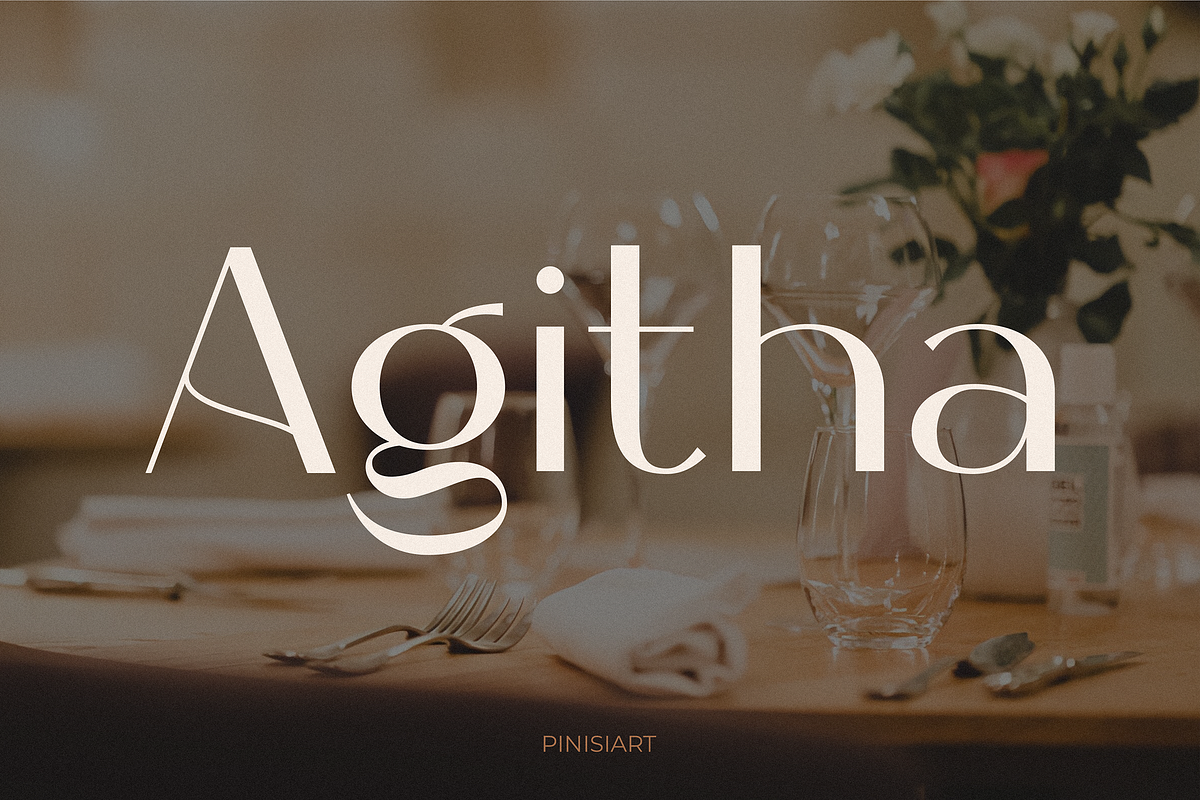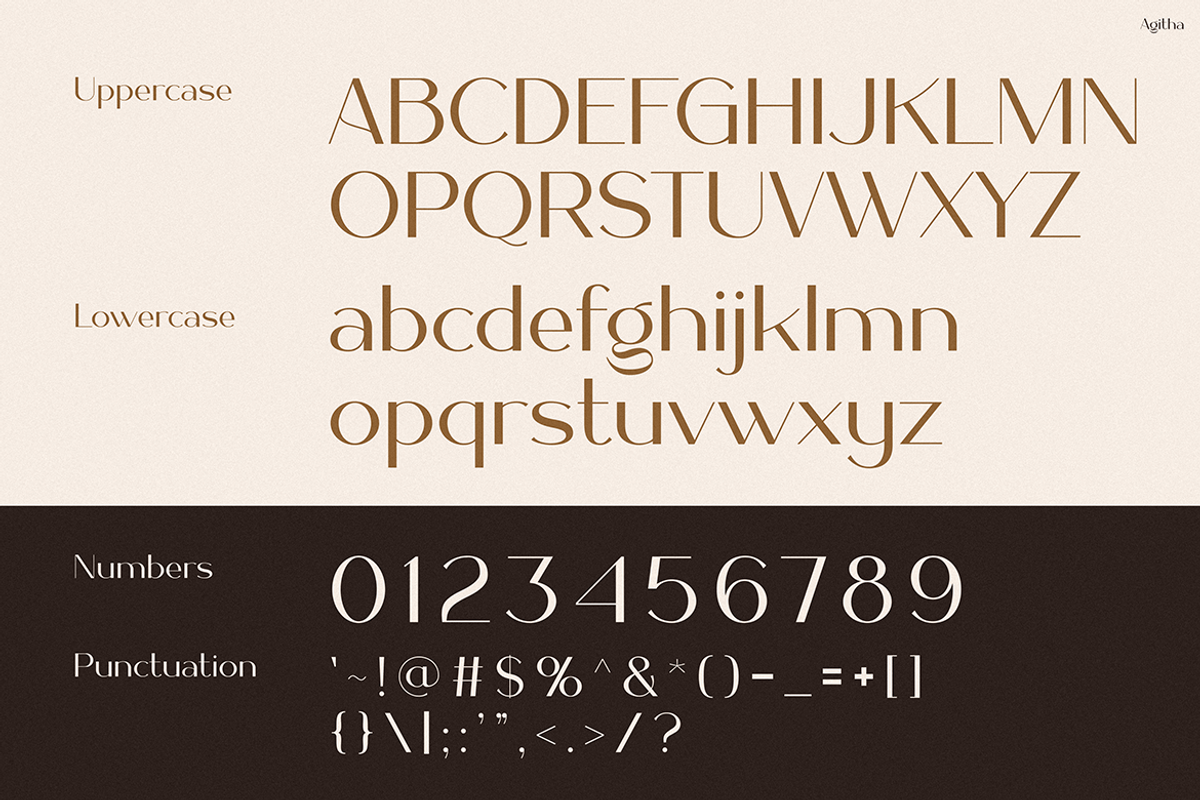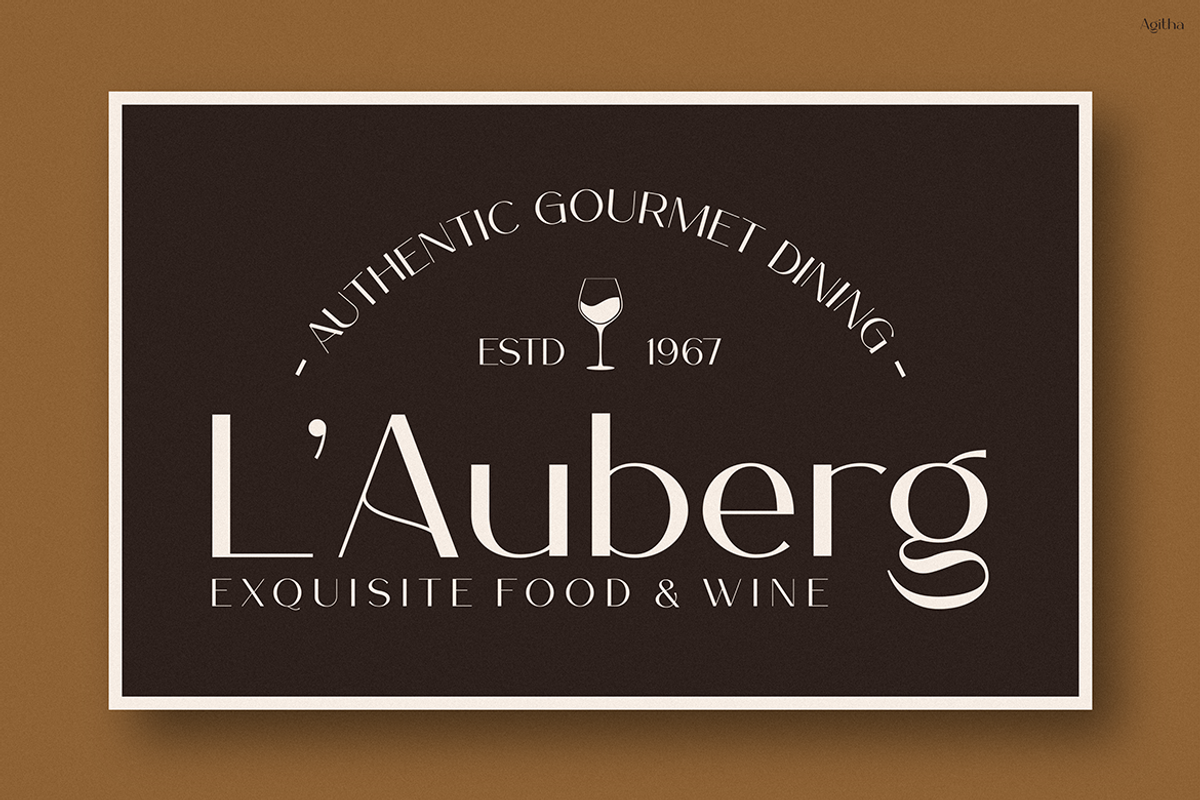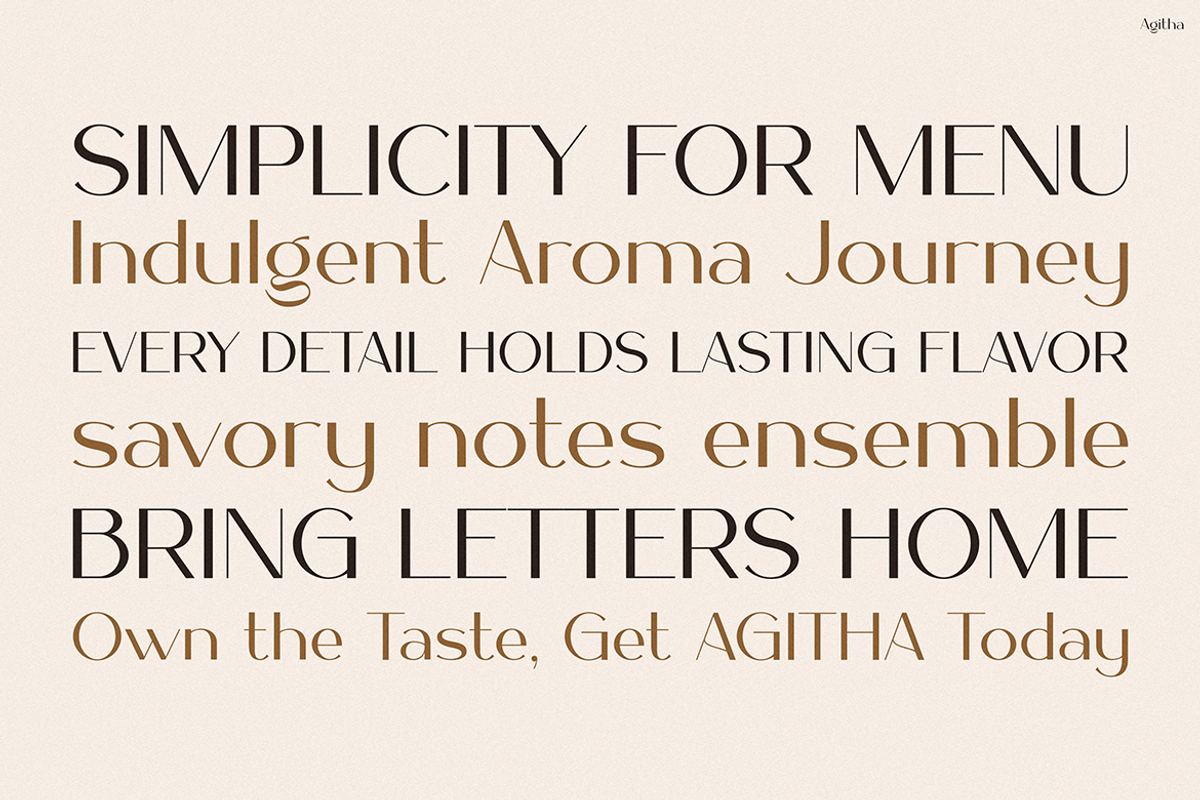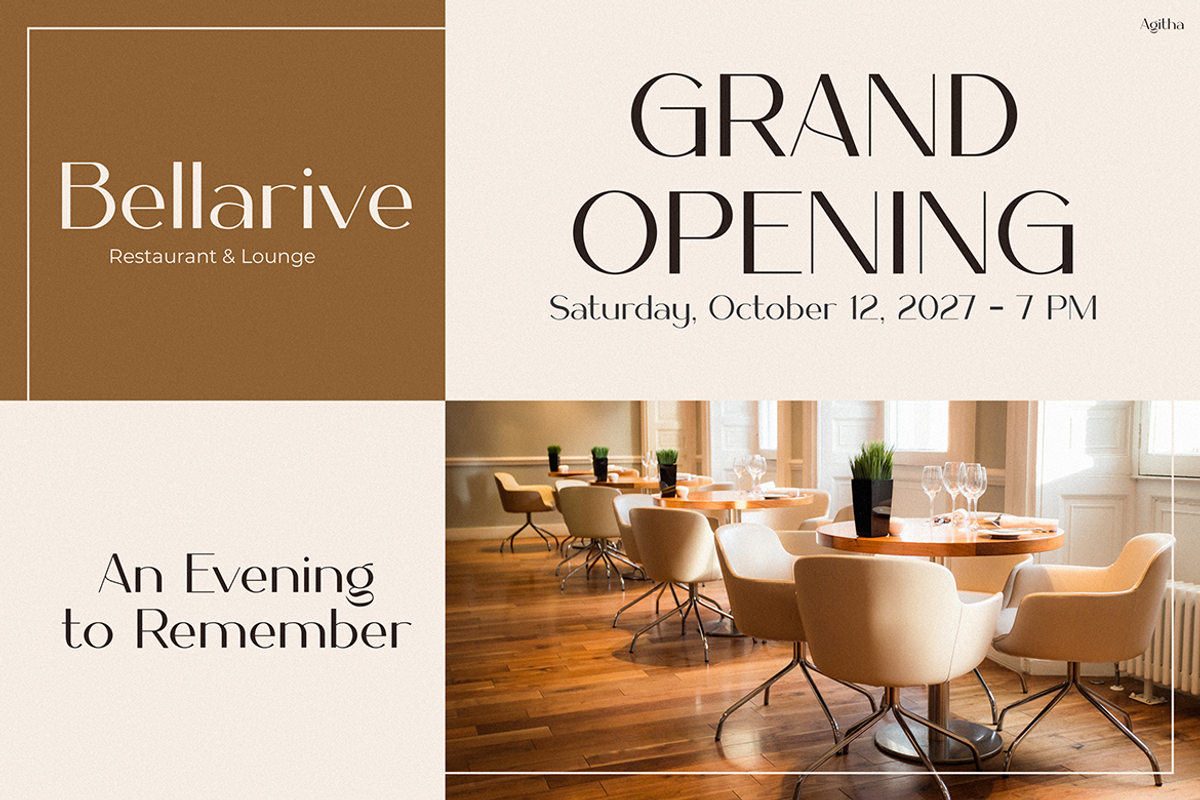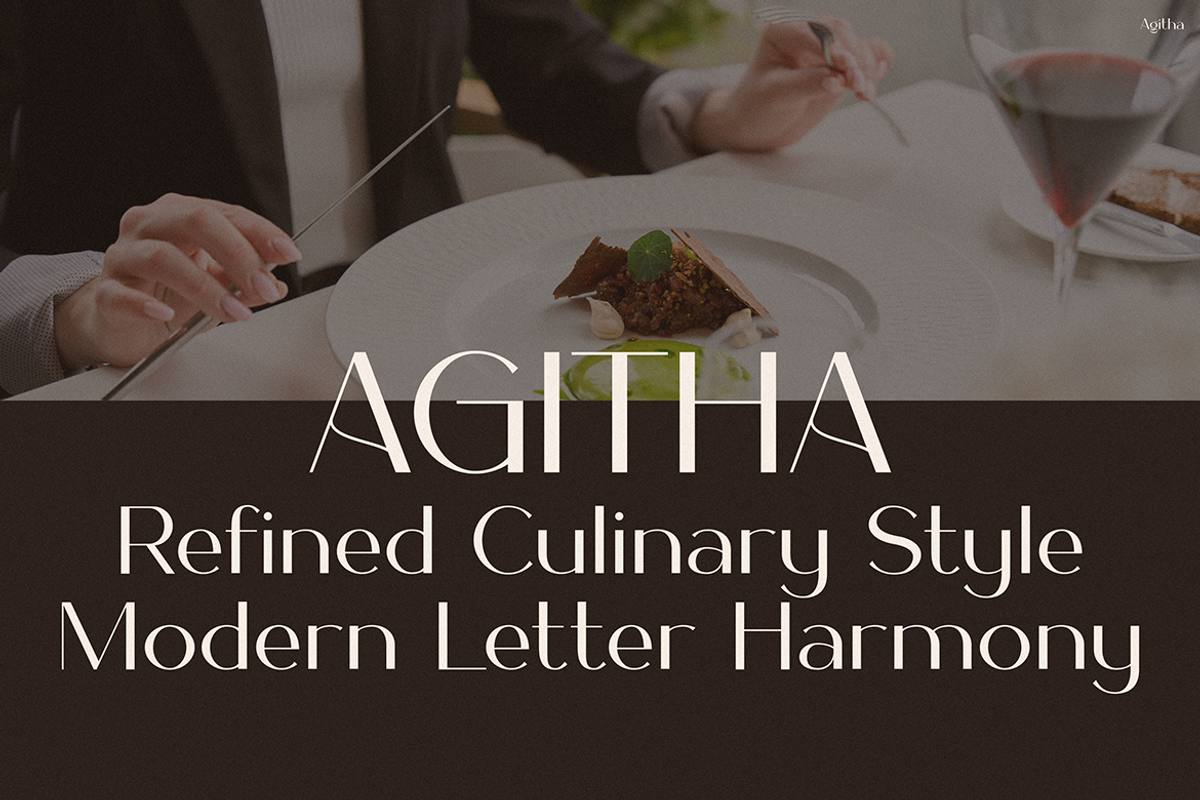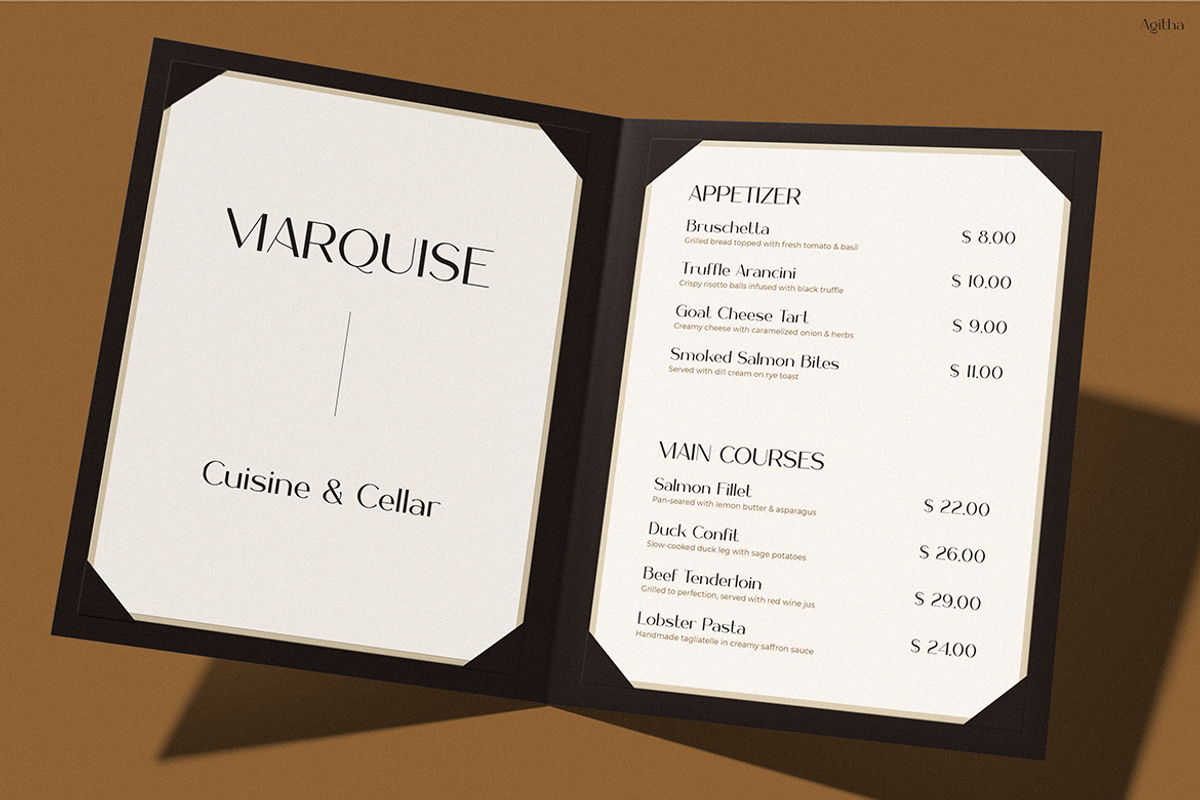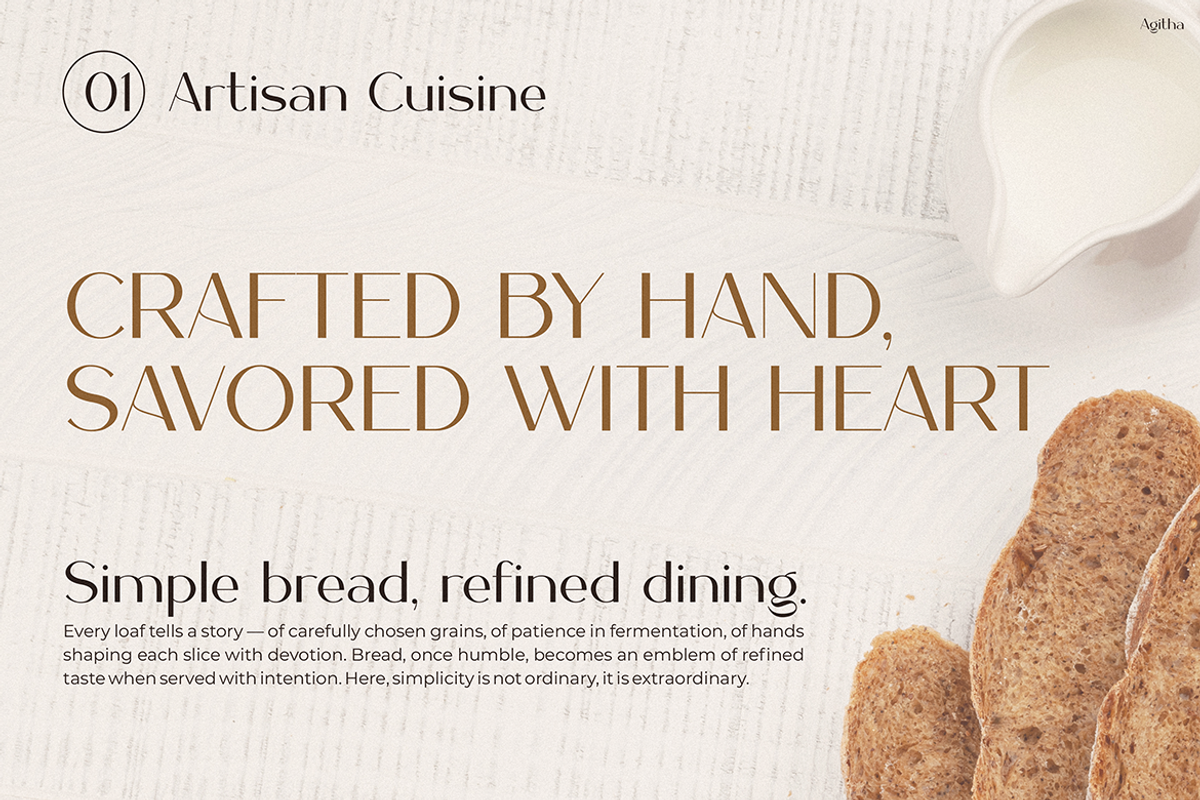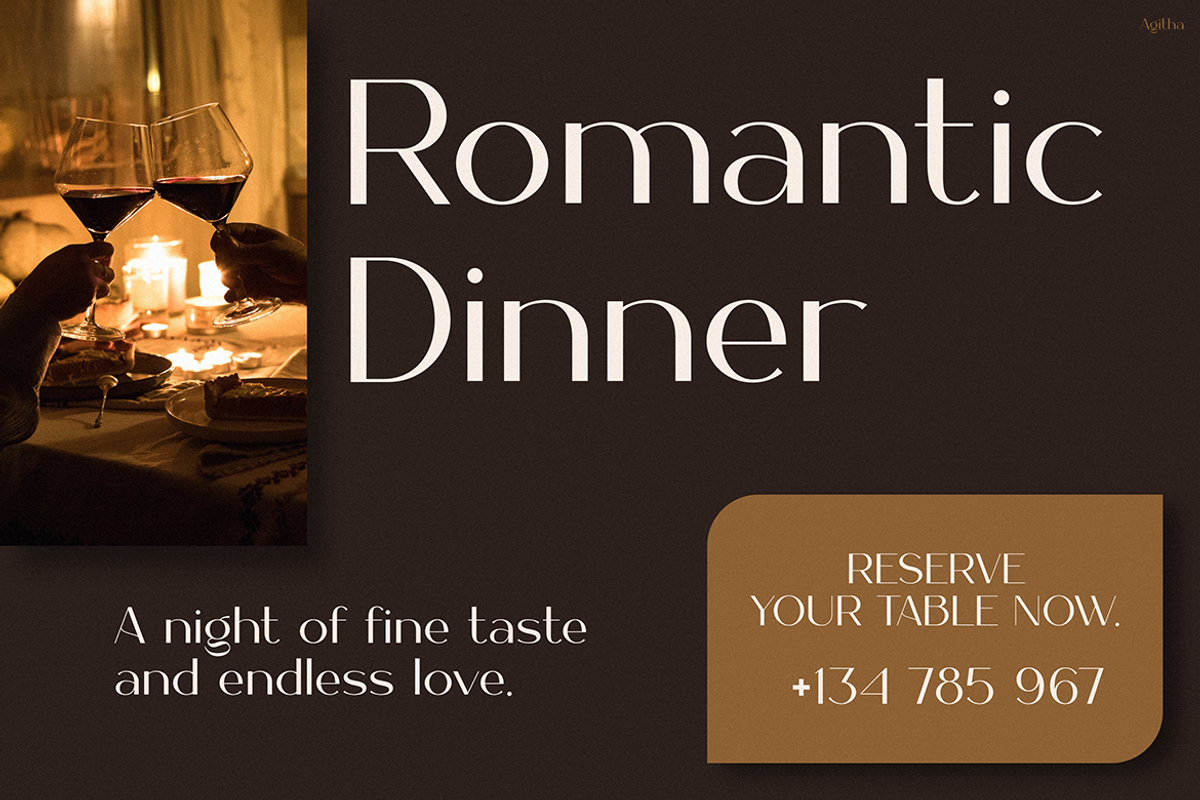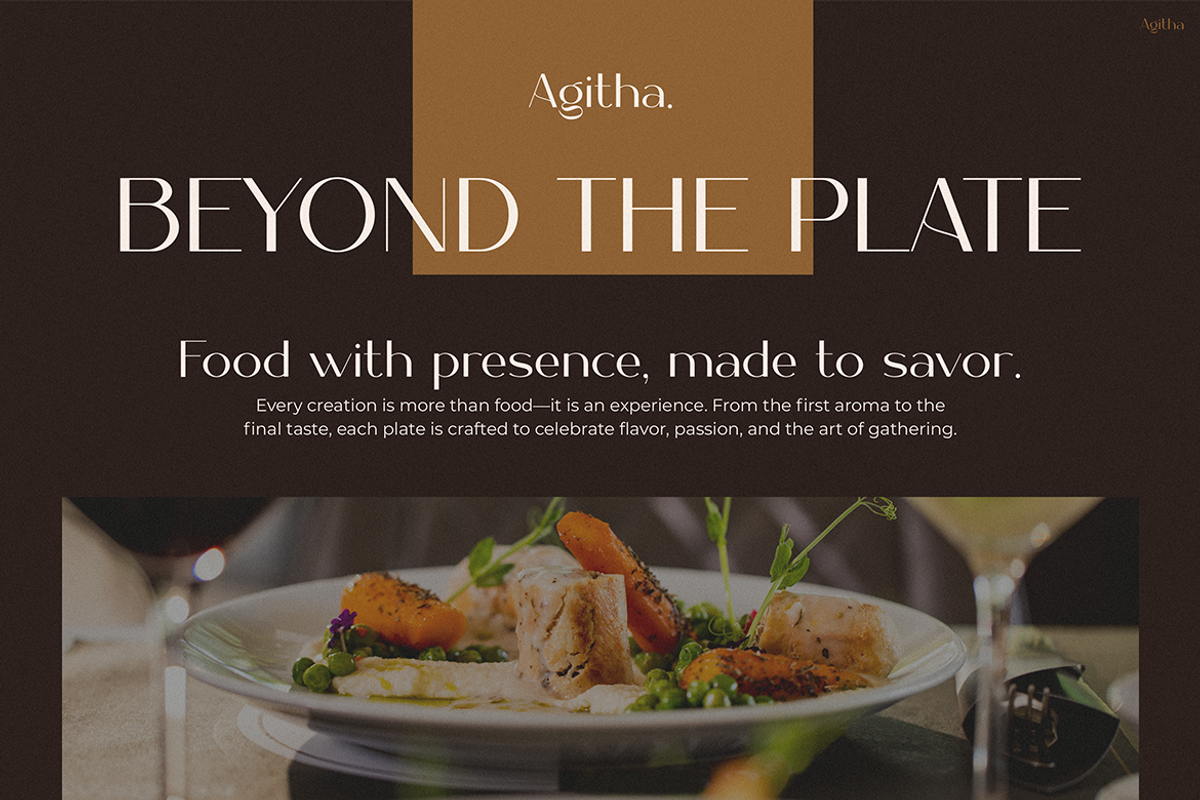
Agitha
Instagram Font Agitha offers a modern, elegant typeface that exudes sophistication and charm. It blends thin and bold strokes gracefully, featuring high contrast, curvy serifs, and a minimalist aesthetic. Moreover, this font captivates with its refined details, helping designers create visual designs that balance readability and style. The soft, flowing lines of the “g” and “h” evoke a timeless, luxurious feel. Meanwhile, the strong vertical strokes add balance to the delicate curves, ensuring versatility for various projects.
In addition to its visual appeal, Agitha stands out as more than just a font. It serves as a statement piece for professionals seeking to combine creativity with professionalism. For instance, you can use it to elevate branding, social media posts, or editorial layouts. Its clean and modern design, combined with classic serif touches, ensures relevance for projects that demand both trendiness and tradition.
Furthermore, its neutral, soft tones pair seamlessly with its sophisticated typography, creating an appealing look for digital platforms. Specifically designed for Instagram and other social media, the font delivers a bold impact in compact spaces. By using Agitha, brands and creators can achieve a distinctive presence in crowded feeds.